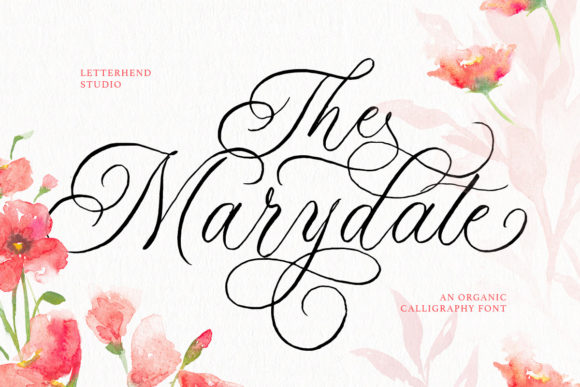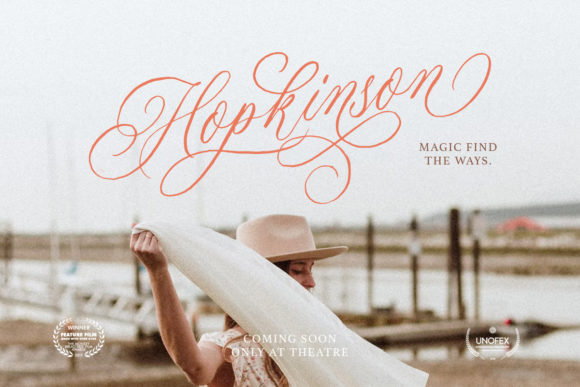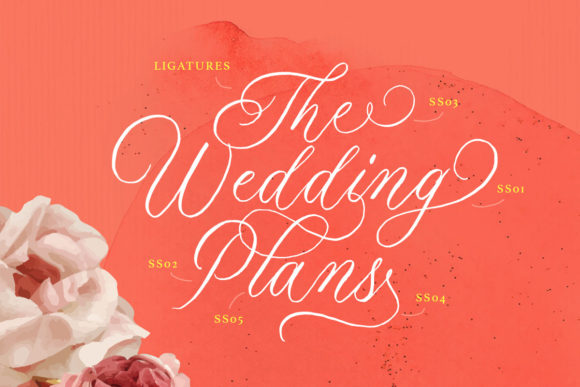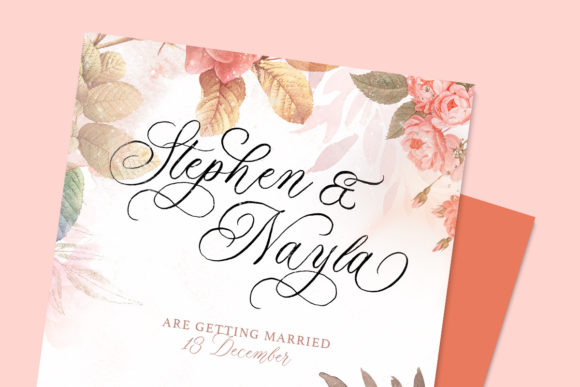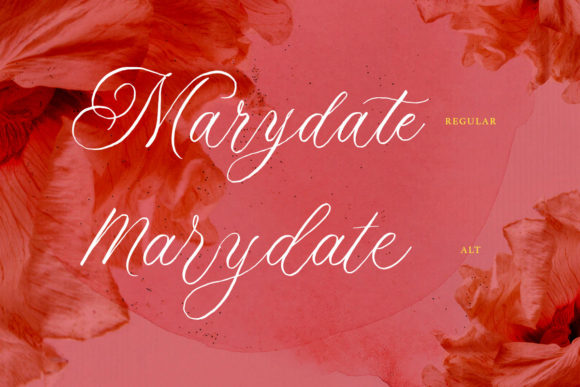
About The Marydate Font
The Marydate is a beautiful and classy script based on a manual calligraphy style that uses ink on paper. It has many swashes and stylistic alternates to choose from that allow you to create beautiful lettering in an instant. It can be used on any type of creative design that needs a natural handwritten touch.